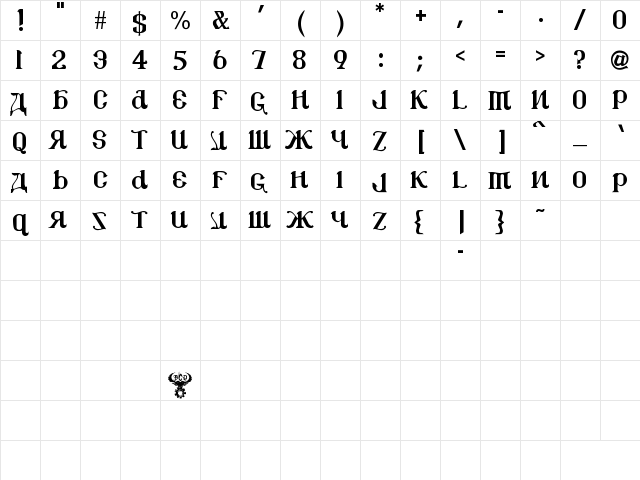
CSAR Regular
Design Context for CSAR Typeface
CSAR is a composed and adaptable typeface that performs quietly and consistently across a wide range of design contexts.
Pro Tip: Use CSAR in both headline and body roles to test its range before committing to a single application.